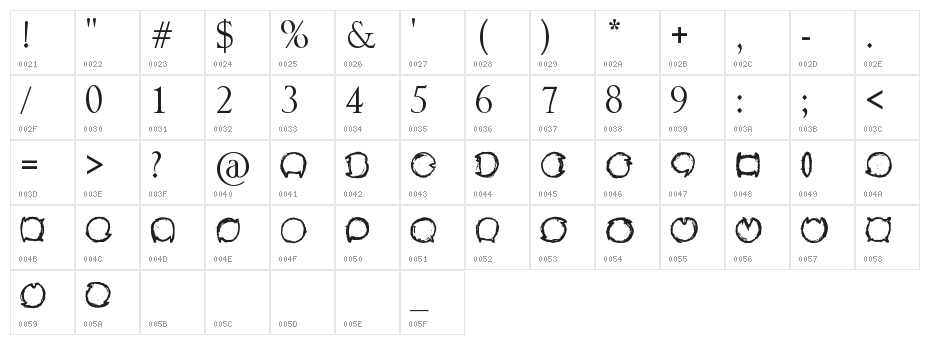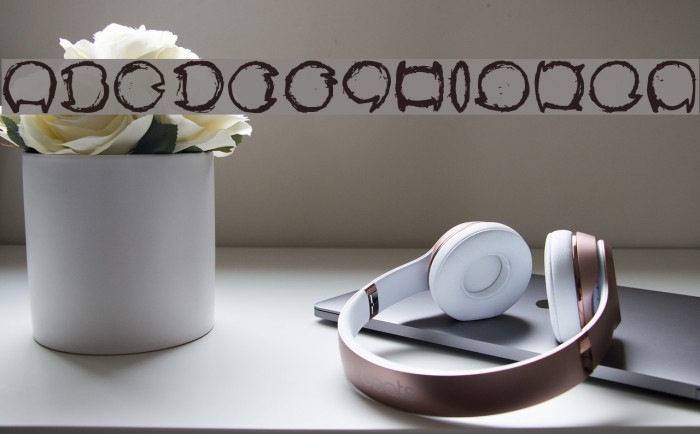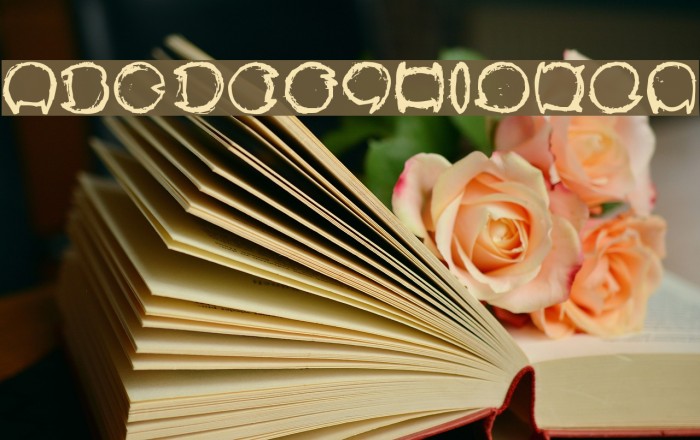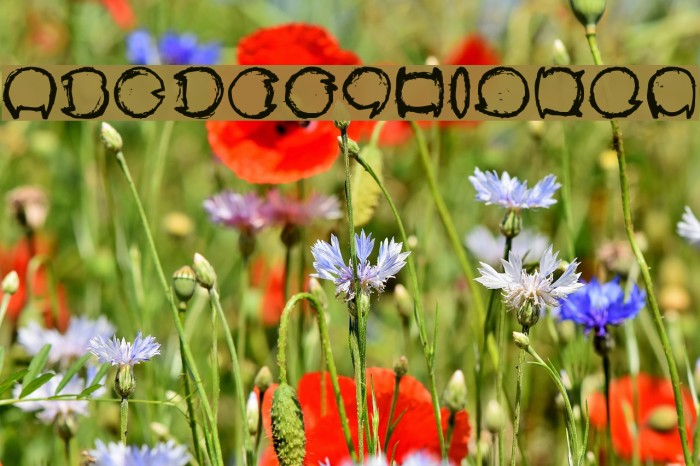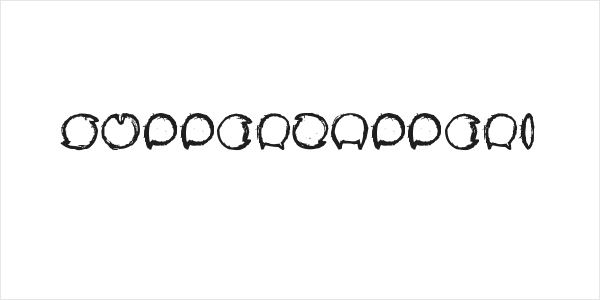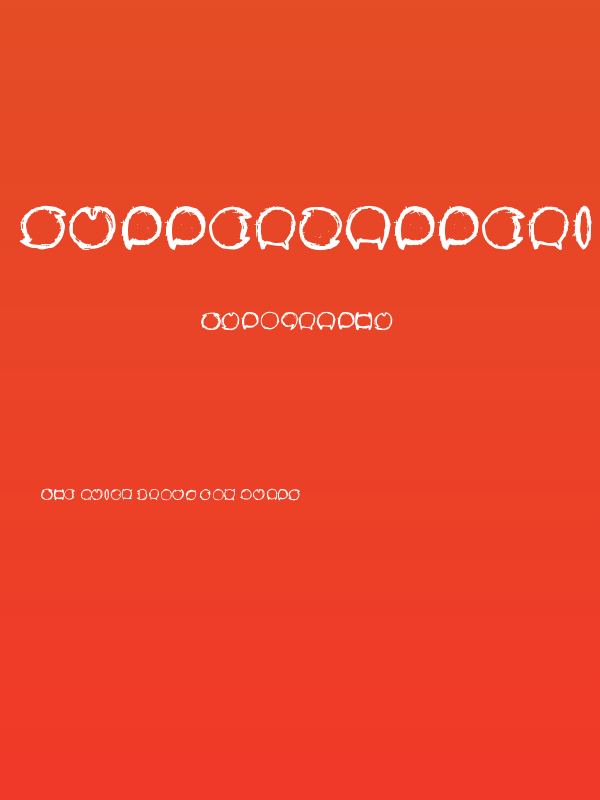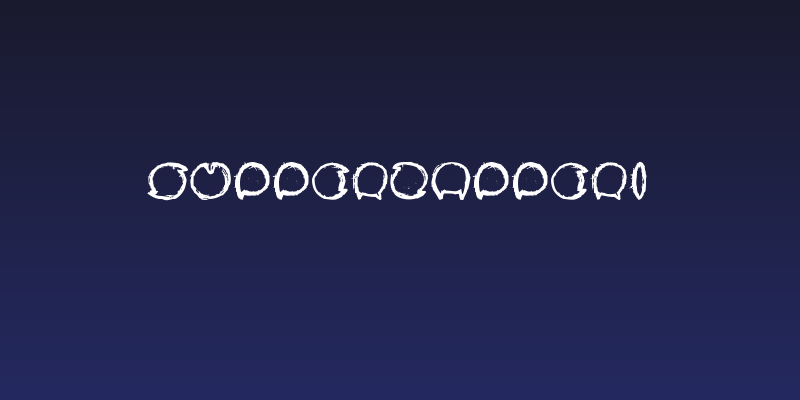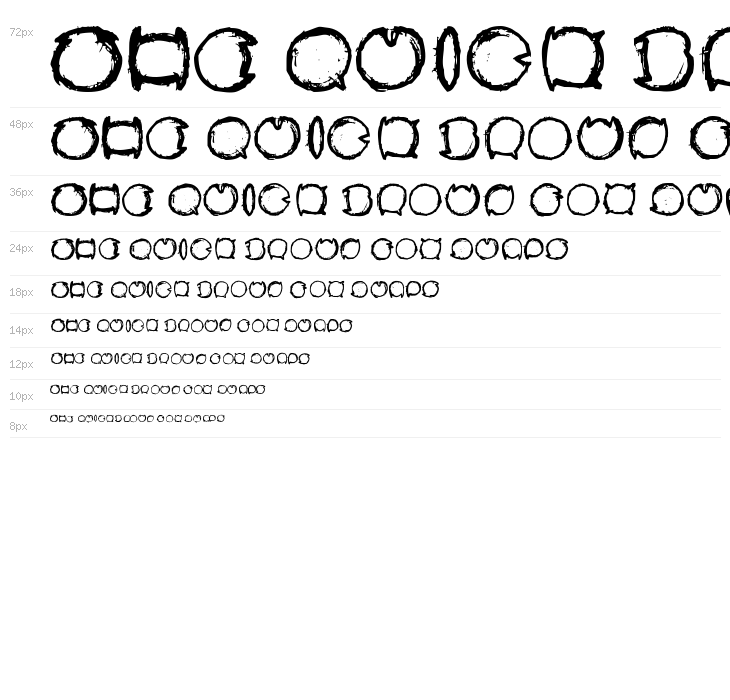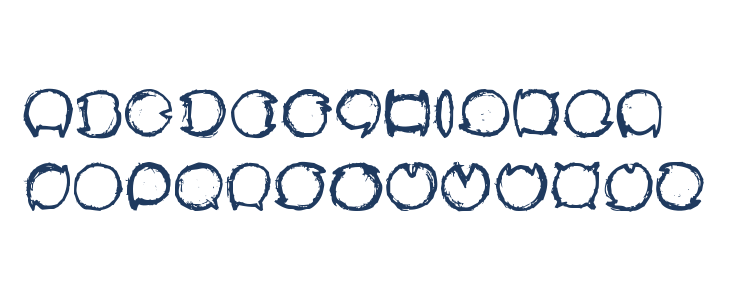
SupperzapperI Font
SupperzapperI Description
This font presents a unique and artistic style, characterized by its rough, hand-drawn appearance. The letters have an irregular, sketch-like quality, with uneven edges and a textured finish that gives them a dynamic and expressive look. The uppercase and lowercase letters maintain a consistent style, while the numerals and special characters complement the overall design. This font's distinctive appearance makes it suitable for creative projects where a bold and unconventional look is desired.
| Use Case | Headlines, Logos, Artistic projects |
| Proposed Projects | Ideal for artistic projects, posters, album covers, and any design requiring a bold, creative touch. |